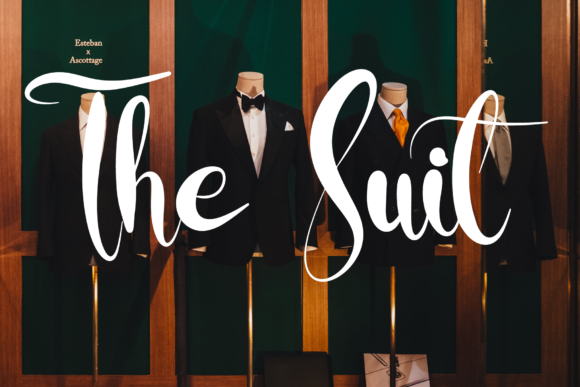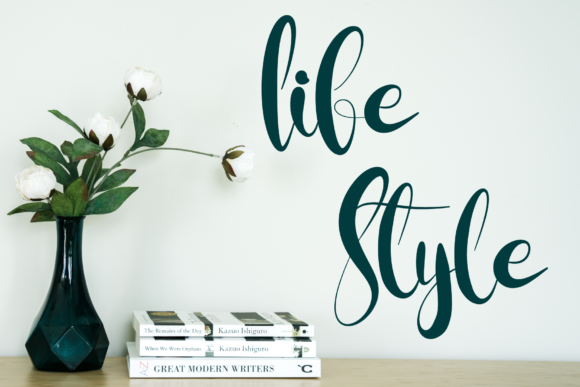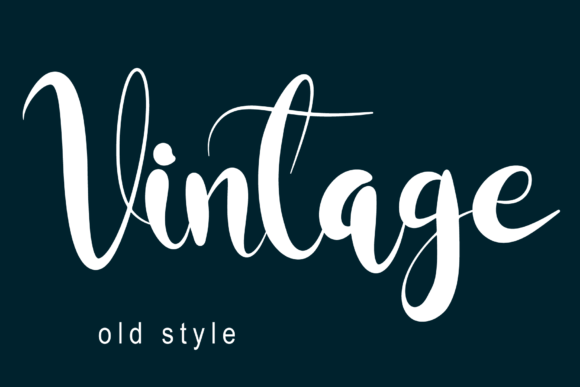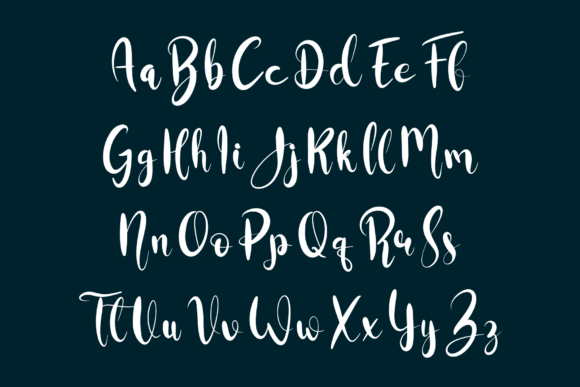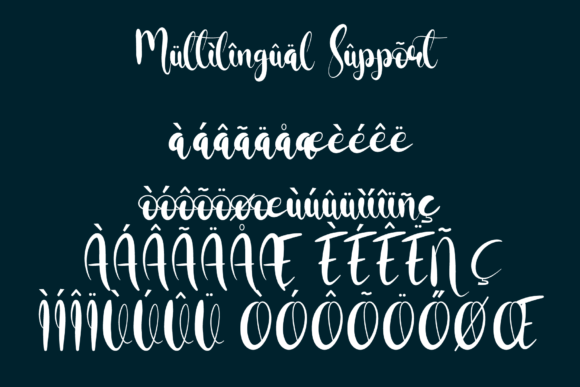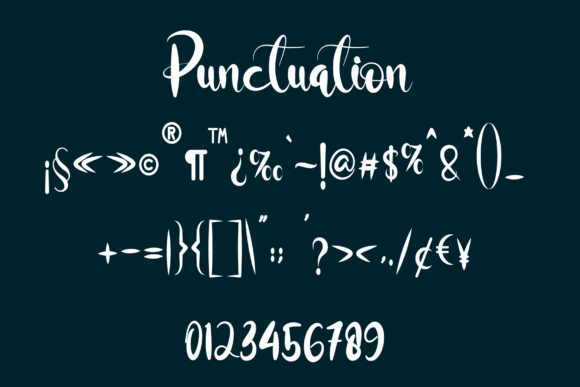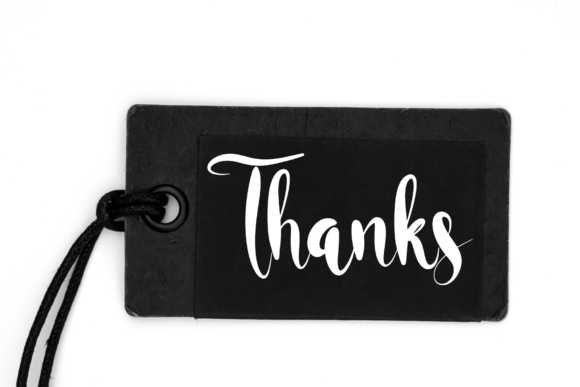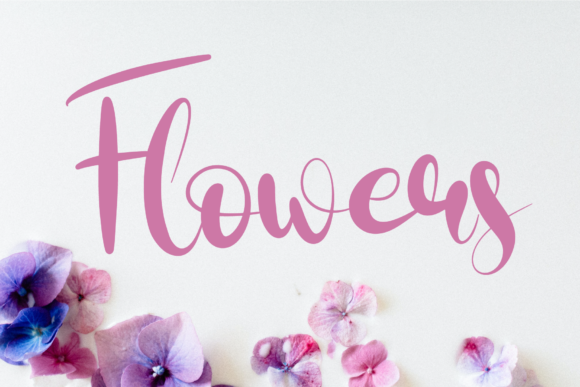
So Vots Font
So Vots is a contemporary and fashionable script font that brings a touch of style and sophistication to your design projects. With its trendy and versatile nature, this font is a valuable addition to your font collection, capable of elevating the visual appeal of any creative endeavor.
The sleek and chic design of So Vots makes it a perfect choice for a wide range of topics and applications. Whether you’re working on branding, logos, social media graphics, advertising materials, packaging, or any other design project, So Vots adds a modern and stylish flair that captures attention and communicates a sense of elegance.
The font’s clean lines, well-crafted curves, and balanced proportions contribute to its overall visual impact. Each letter is meticulously designed to create a harmonious flow, allowing the characters to seamlessly interact with one another. This attention to detail ensures that your text appears polished and refined, whether used as a headline, subheading, or body text.
So Vots also offers a sense of versatility, adapting effortlessly to different design aesthetics and themes. Its ability to enhance various creations is one of its standout features, making it a reliable and go-to choice for designers looking to make a lasting impression.
Additionally, So Vots provides you with the opportunity to explore various creative possibilities. You can experiment with its alternate characters, ligatures, and swashes to customize the font’s appearance and tailor it to your specific project requirements. This adaptability allows you to create unique and captivating designs that resonate with your target audience.
Incorporating So Vots into your font library opens up a world of creative opportunities. Whether you’re designing for digital or print, casual or upscale, this trendy and stylish script font will undoubtedly enhance your design compositions and help you achieve your desired visual impact.